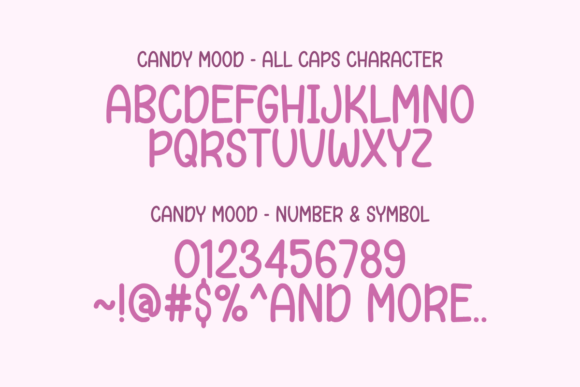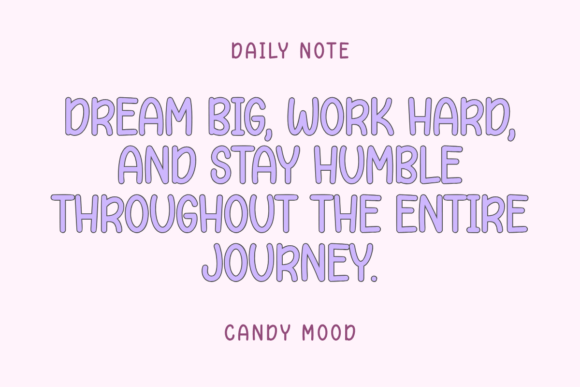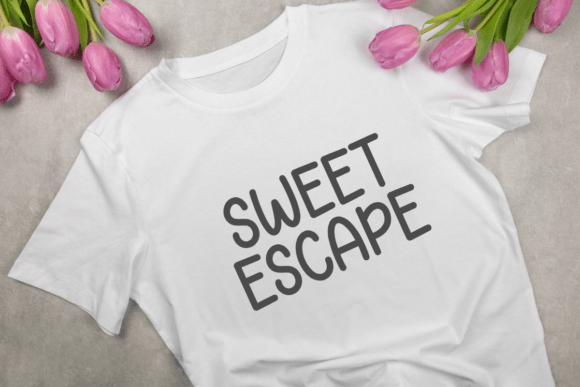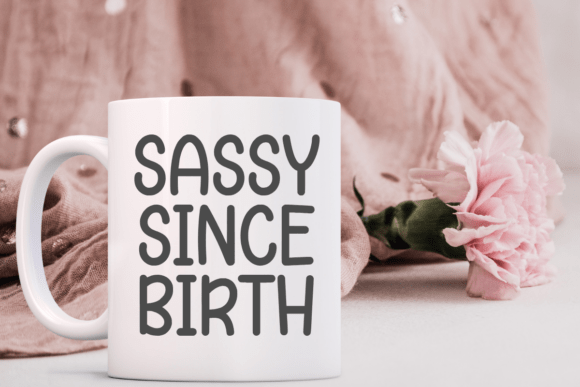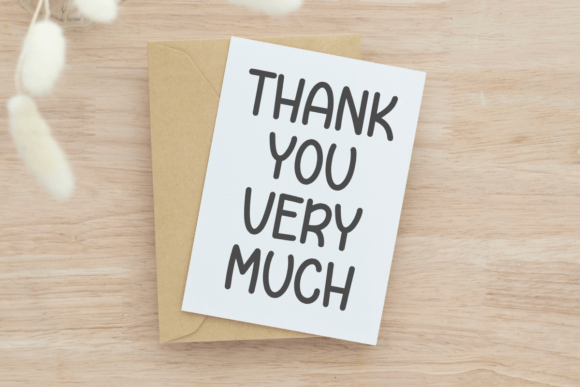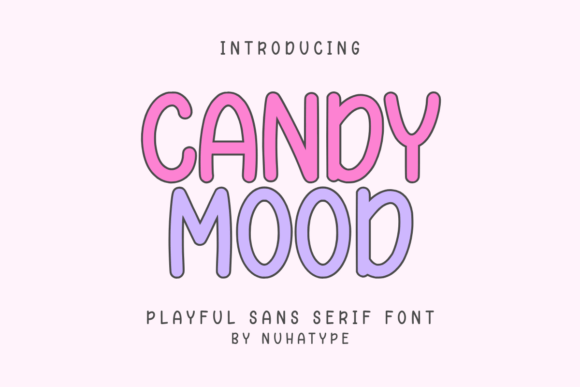
Candy Mood Font: Elevate Your Designs with Elegant Minimalism
In the world of digital design, fonts play a crucial role in conveying the tone and aesthetic of a project. For crafters, designers, and artists, finding the perfect font can be a game-changer. If you’re looking for a font that embodies elegance, simplicity, and a touch of natural charm, look no further than Candy Mood. This beautifully minimalist, thin sans serif font is designed to bring a sophisticated allure to a wide range of creative projects.
The Charm of Candy Mood Font
Candy Mood Font is an elegantly minimalist, thin sans serif font that mirrors the charm of natural handwriting. Its understated design makes it an ideal choice for designers and crafters who want to add a touch of sophistication to their work. The font’s simplicity and elegance ensure that it can be used in a variety of contexts, from planners and journals to stickers, labels, and inspiring quotes.
One of the standout features of Candy Mood Font is its versatility. This font excels in bringing a simplistic allure to a wide range of projects, including:
- Planners: Add a touch of elegance to your planners and organizers with Candy Mood Font.
- Interior KDP: Create beautifully designed books and journals that showcase your unique style.
- Journals: Inspire writers and artists with a font that encourages creativity and self-expression.
- Cricut Creations: Elevate your Cricut projects with a font that adds a touch of sophistication.
- Stickers and Labels: Create eye-catching stickers and labels that showcase your brand’s personality.
- Inspiring Quotes: Share motivational quotes and messages with a font that adds a touch of elegance.
Beyond the Basics: Creative Applications of Candy Mood Font
While Candy Mood Font excels in traditional design applications, its versatility extends far beyond the basics. Consider using this beautiful font for:
- Tumblers: Add a touch of elegance to your custom tumblers and water bottles.
- Mugs: Create beautifully designed coffee mugs and tea cups that showcase your unique style.
- Tote Bags: Elevate your tote bag designs with a font that adds a touch of sophistication.
- Other Inventive Pieces: From customized phone cases to artistic prints, Candy Mood Font can be used to create a wide range of unique and creative projects.
Why Choose Candy Mood Font?
So why choose Candy Mood Font for your next project? Here are just a few reasons:
- Elegant Minimalism: Candy Mood Font embodies the perfect balance of elegance and simplicity.
- Versatility: This font can be used in a wide range of projects, from traditional designs to more creative applications.
- Understated Touch: Candy Mood Font adds a touch of sophistication to any project without overpowering the design.
- Easy to Read: The font’s clear and simple design makes it easy to read, even at smaller sizes.
In conclusion, Candy Mood Font is a beautifully designed, elegantly minimalist font that is perfect for designers, crafters, and artists. Its versatility, understated touch, and ease of use make it an ideal choice for a wide range of creative projects. Whether you’re creating planners, journals, stickers, or more, Candy Mood Font is sure to elevate your designs and add a touch of sophistication. So why wait? Discover the charm of Candy Mood Font and take your designs to the next level.